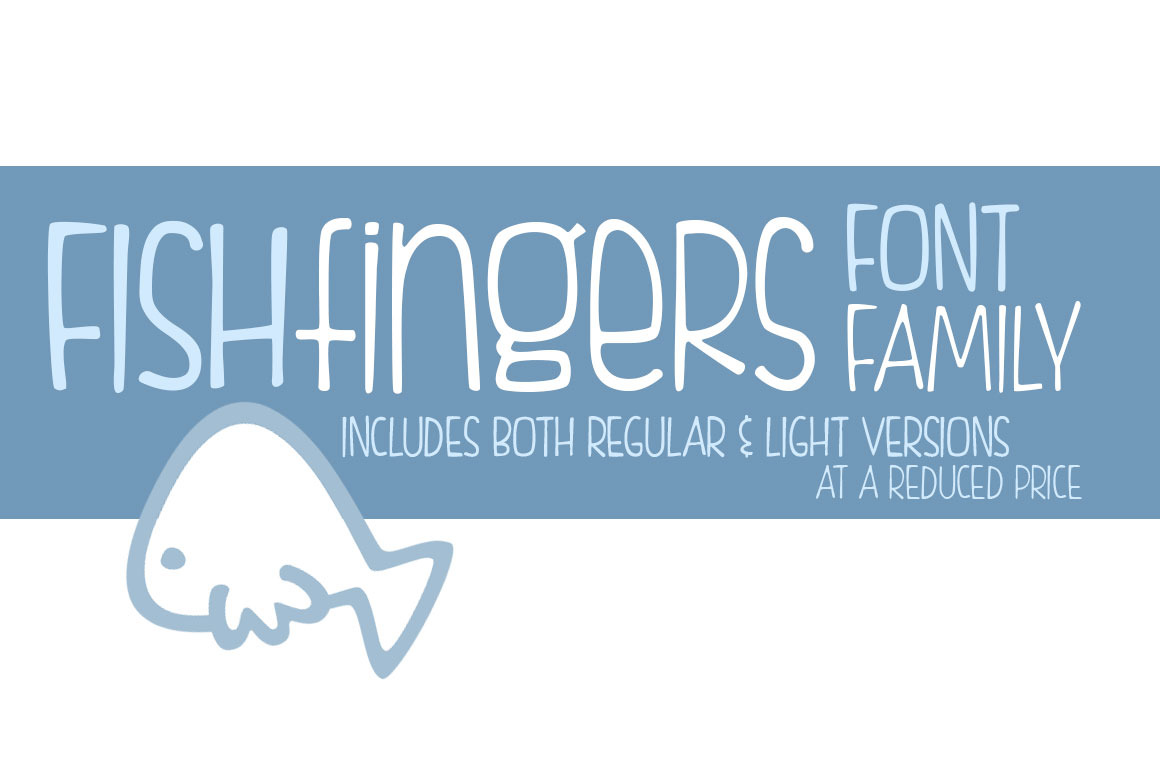
Fishfingers Font Family
Fishfingers is a fun comic font that is both bold and quirky and demands to be read aloud. Great for headlines or crafts! Now you can get both the regular and light versions together for a reduced price!